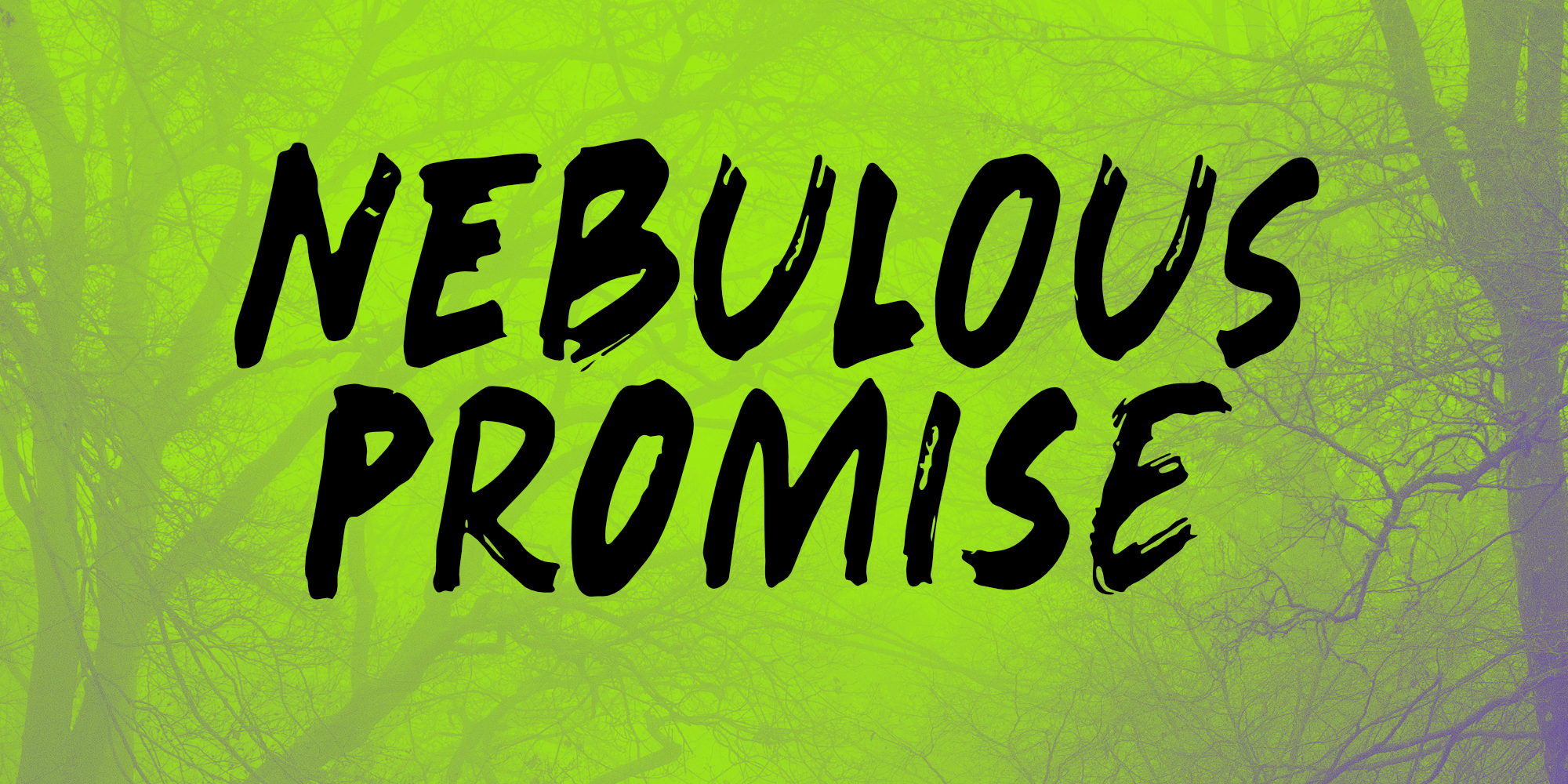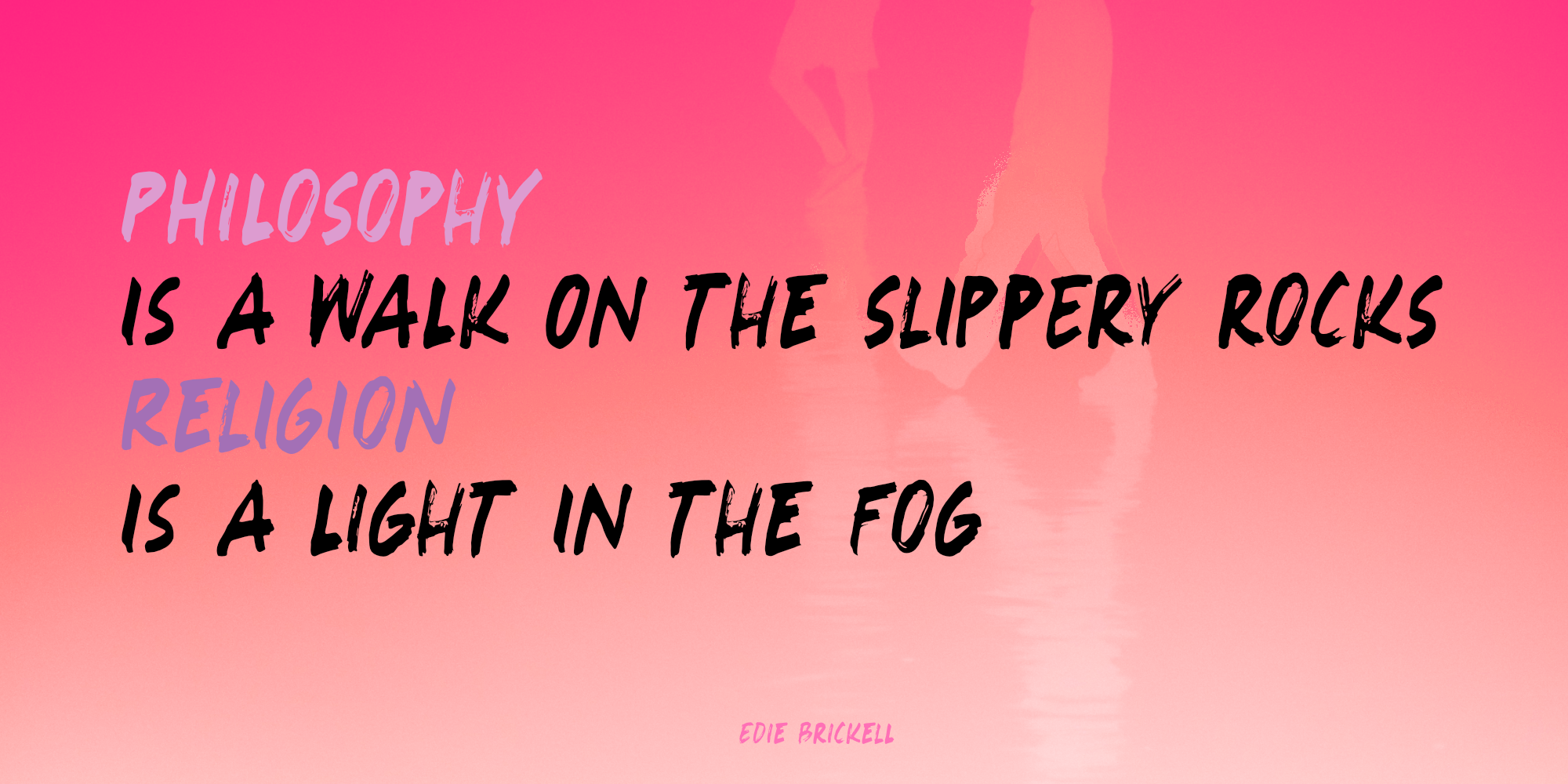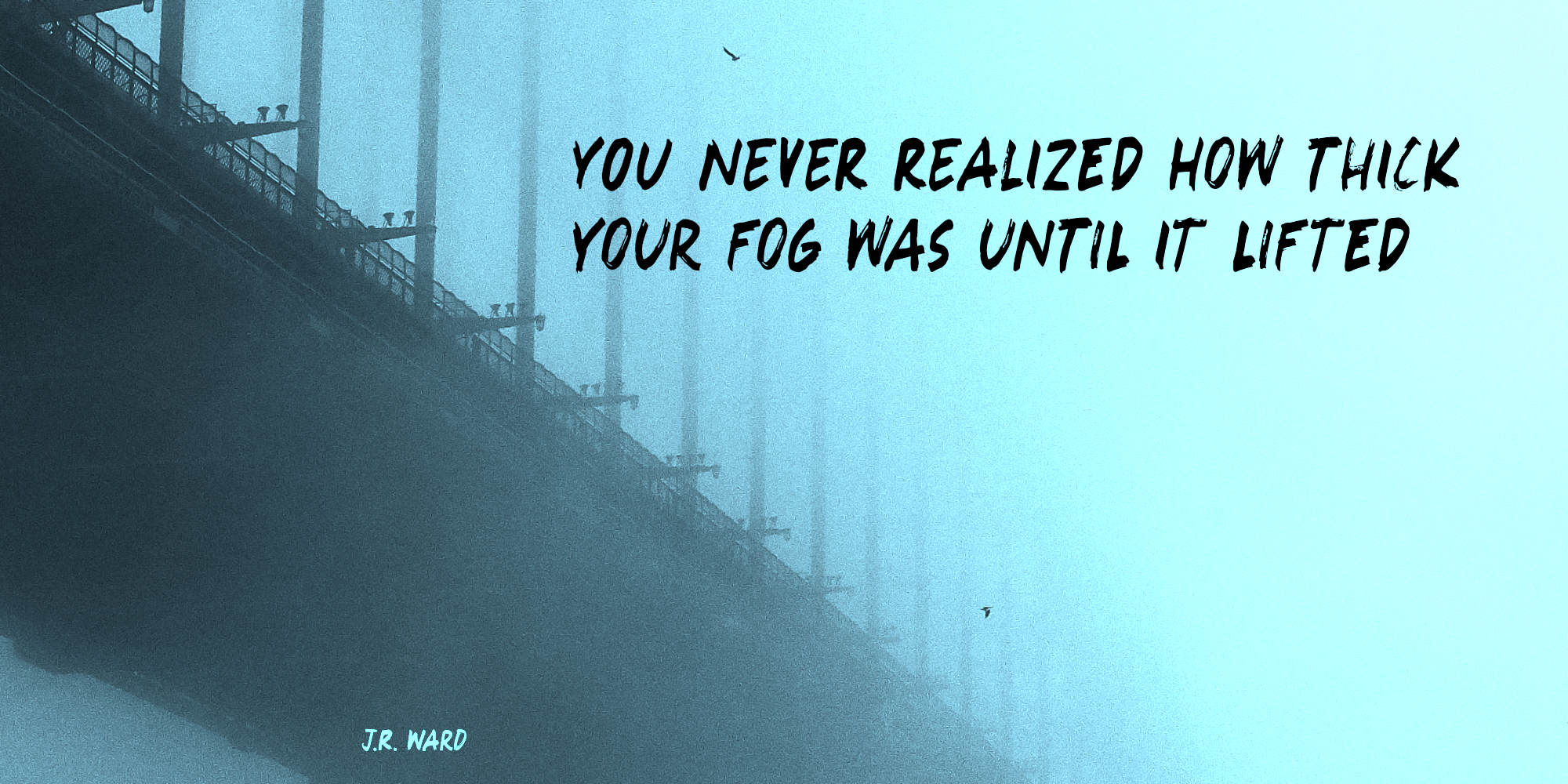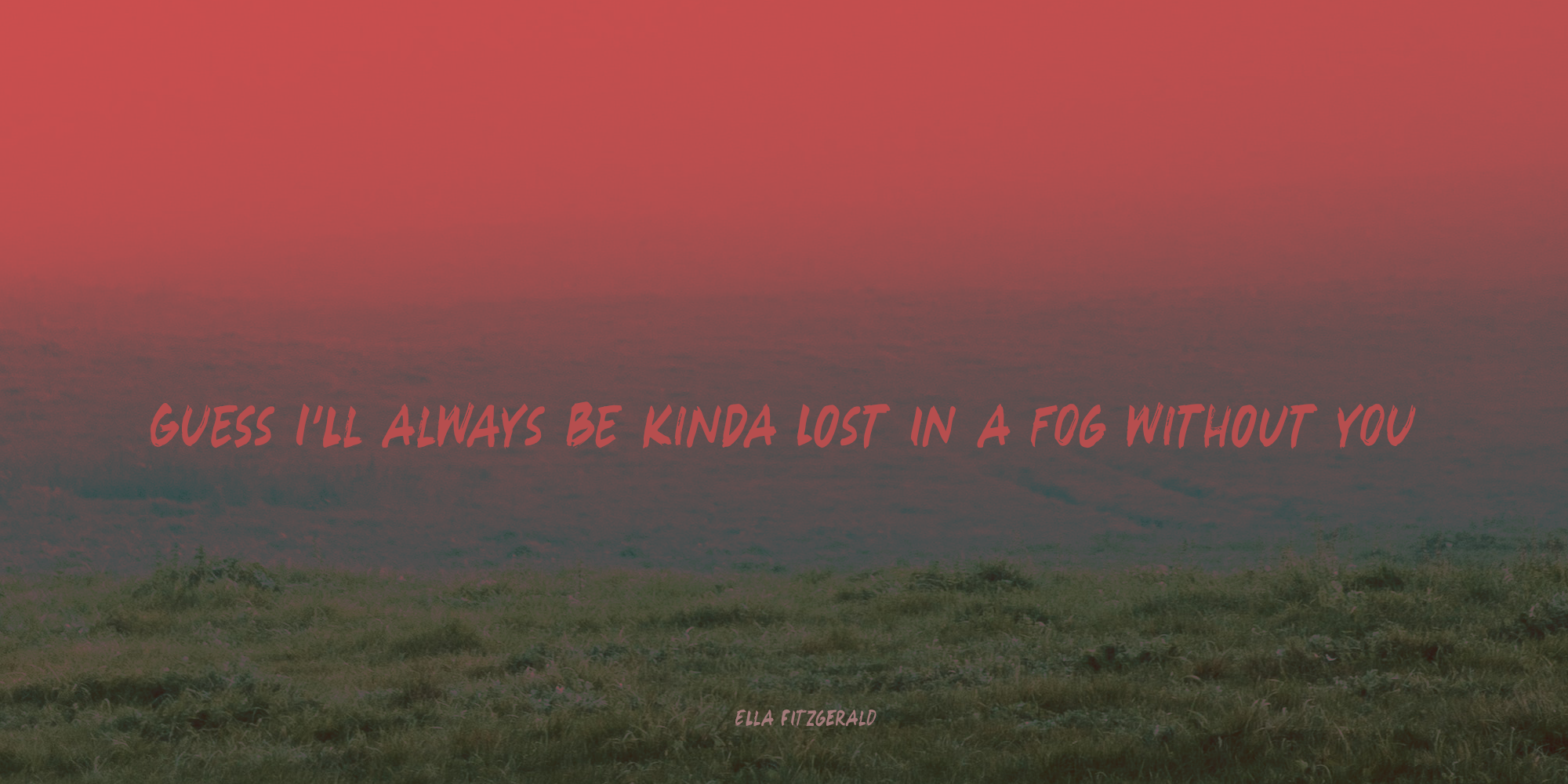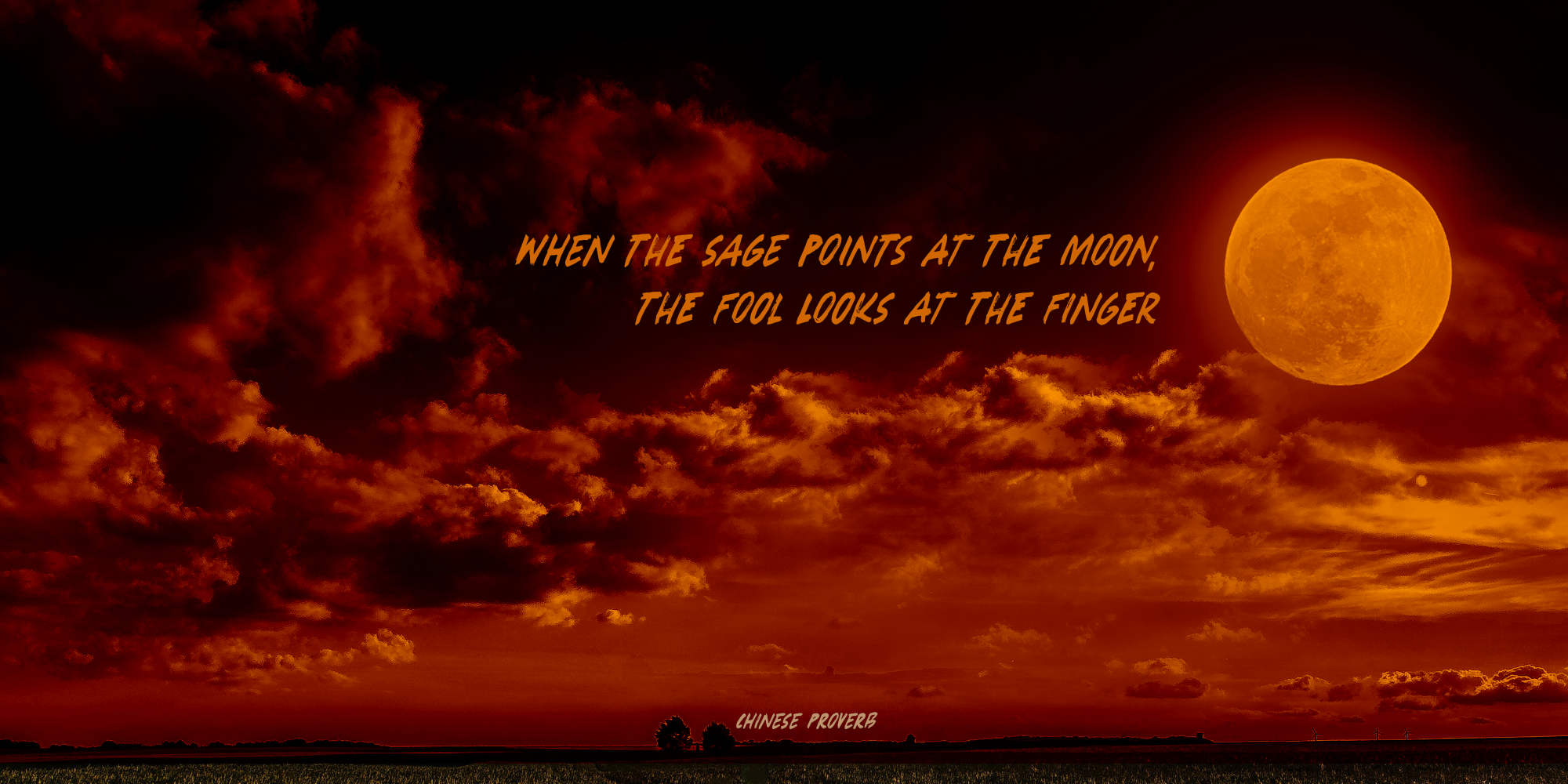
Nebulous Promise (2 fonts)
Nebulous Promise was made using a broken satay skewer (I like using those!) and Chinese ink. It comes with a full set of alternates for the lower case letters and extensive language support.